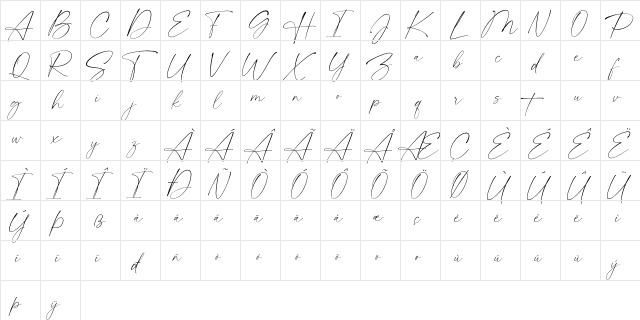
Segatha Regular
Design Context for Segatha Typeface
Segatha is a composed and adaptable typeface that performs quietly and consistently across a wide range of design contexts.
Pro Tip: Pair Segatha with a font of contrasting weight or personality to build a more expressive typographic hierarchy.